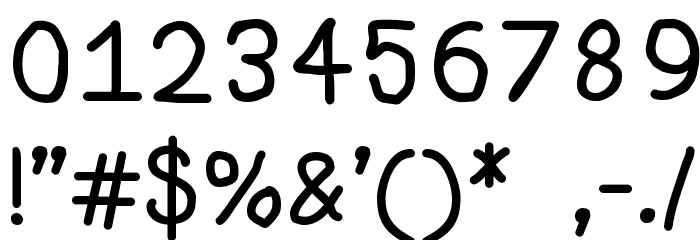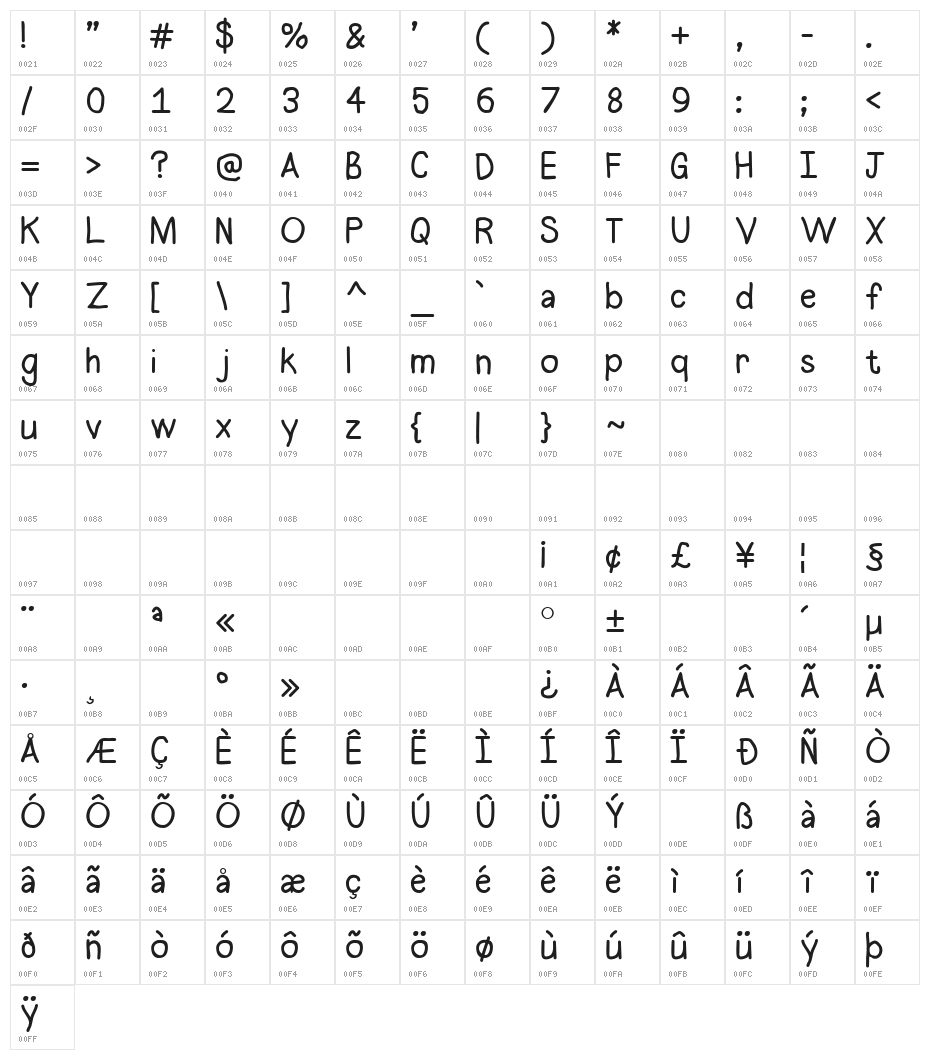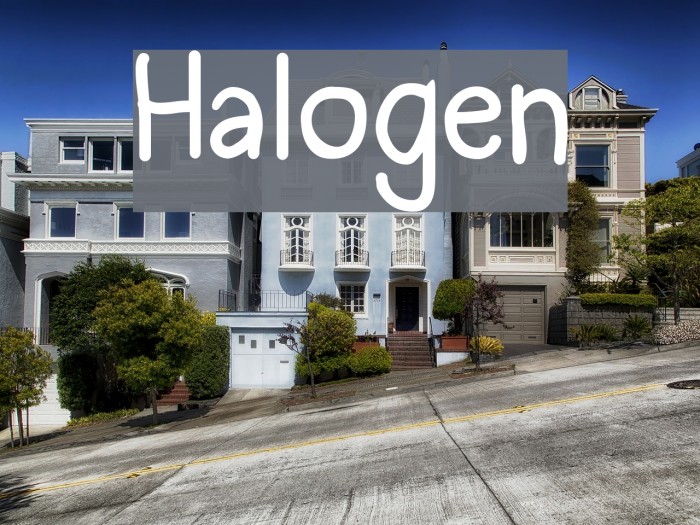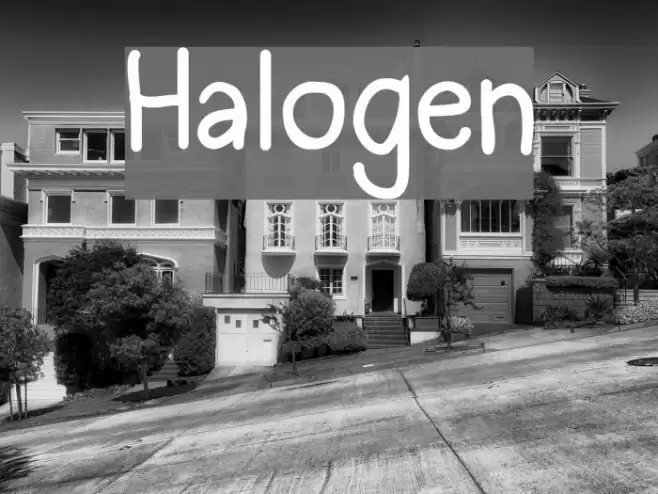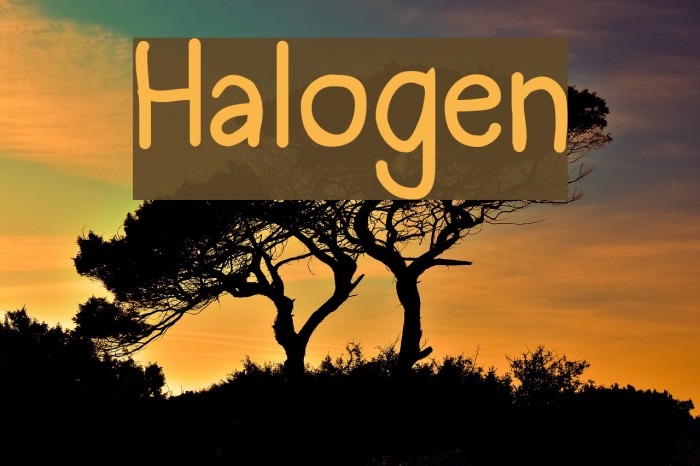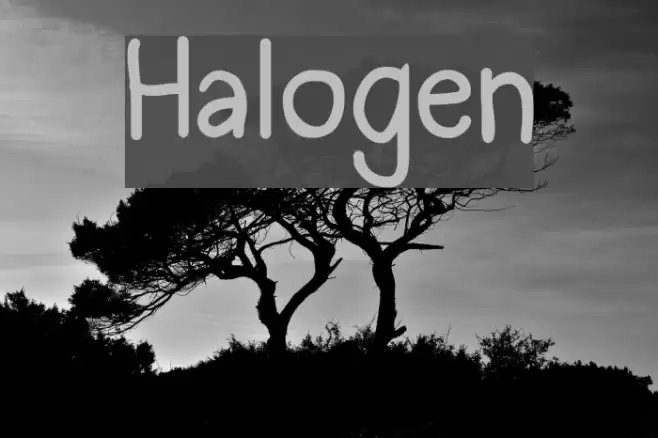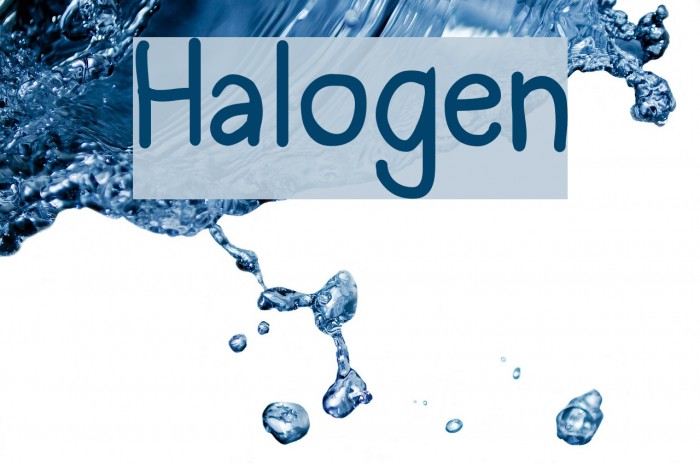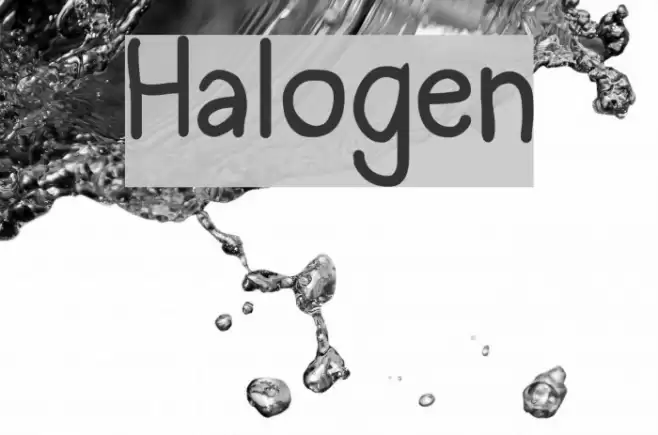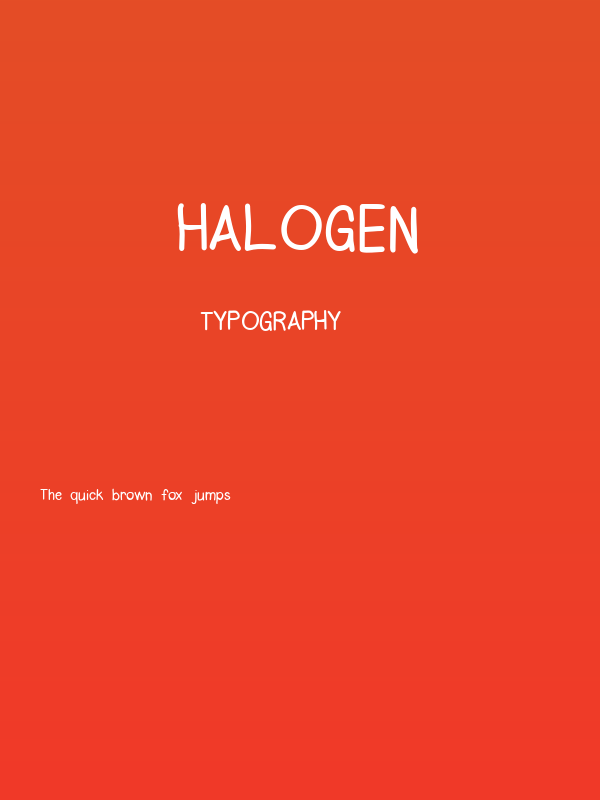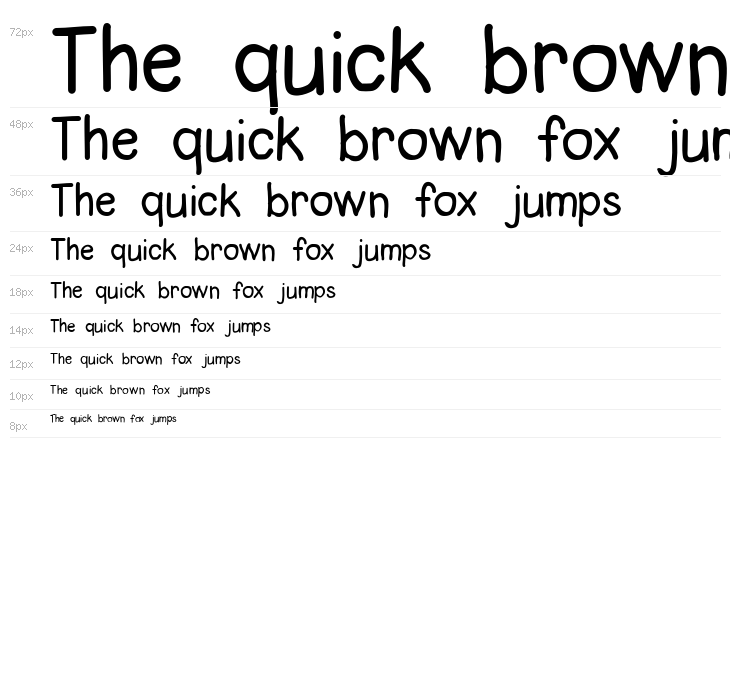
Halogen Font
Halogen Description
This font features a playful and casual handwritten style, characterized by its rounded and slightly irregular letterforms. The strokes are consistent in width, giving it a uniform appearance while maintaining a friendly and approachable vibe. The uppercase and lowercase letters are well-balanced, with a slight tilt that adds to its informal charm. The numerals and special characters are designed to match the overall aesthetic, ensuring cohesion across all glyphs. This font is ideal for projects that require a personal touch, such as greeting cards, invitations, or children's books.
| Use Case | Headlines, Informal text, Branding |
| Proposed Projects | Ideal for greeting cards, invitations, children's books, and casual branding. |